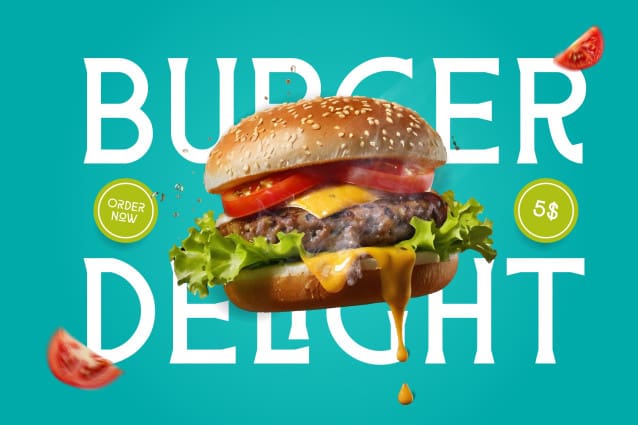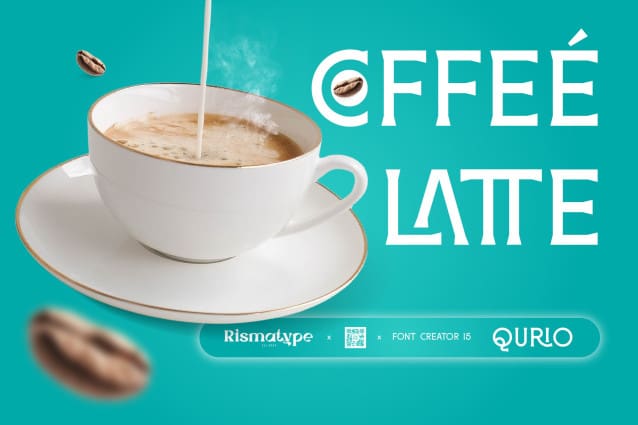
Qurio Font
Qurio Font is a serif display font designed to embody elegance and contemporary appeal. With its refined lines and striking curves, this font is perfect for elevating design projects that demand sophistication and style.